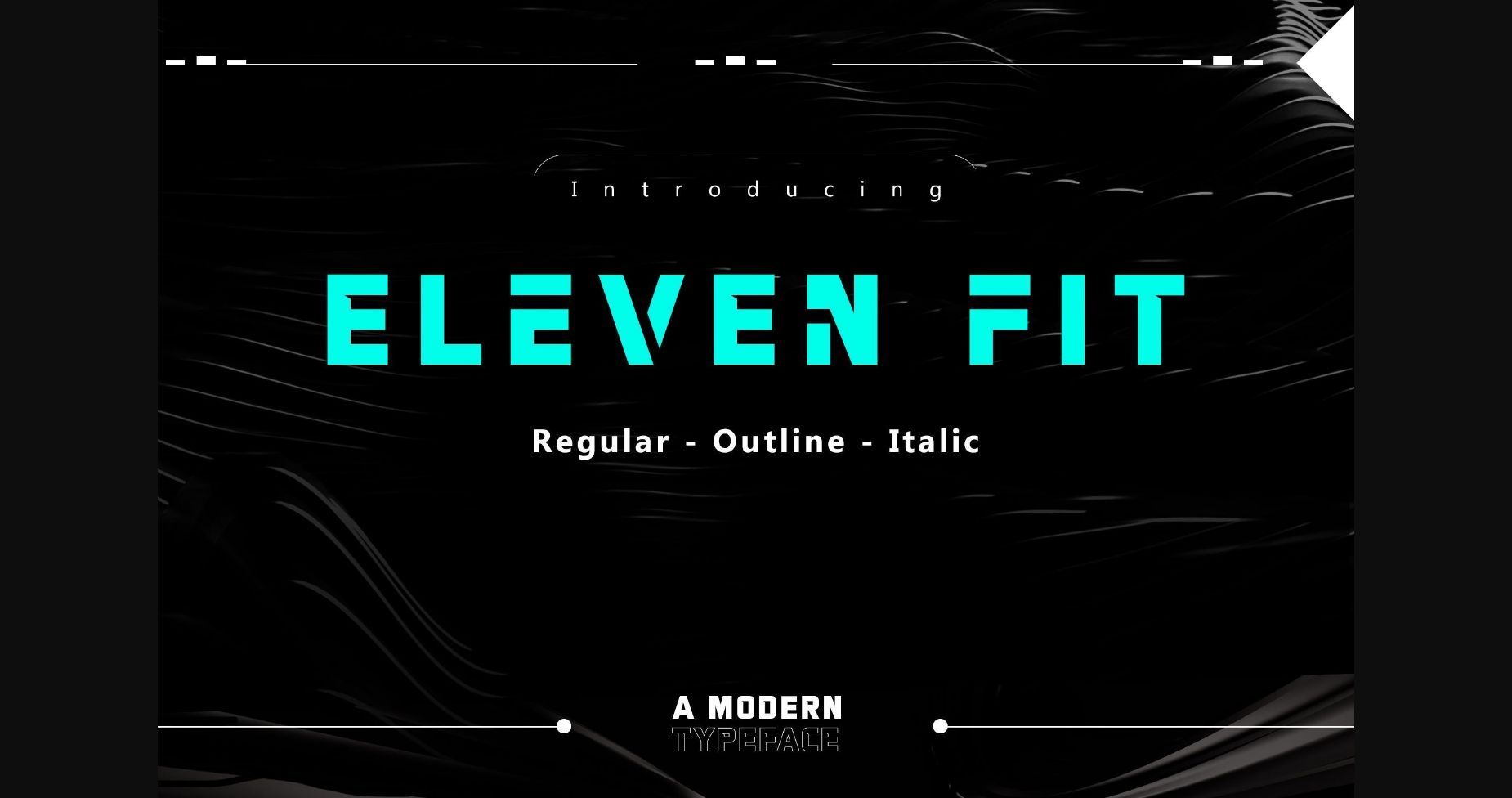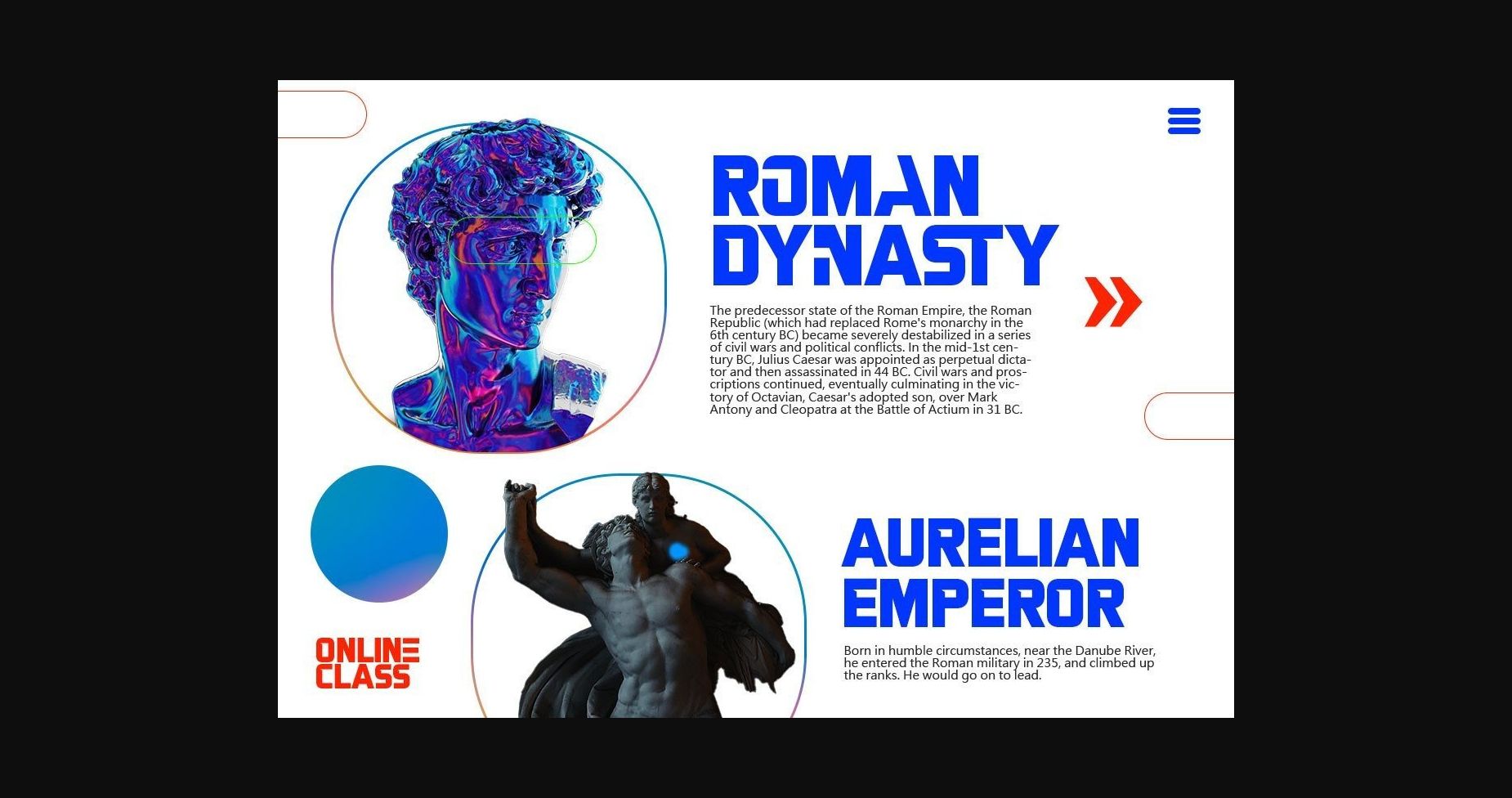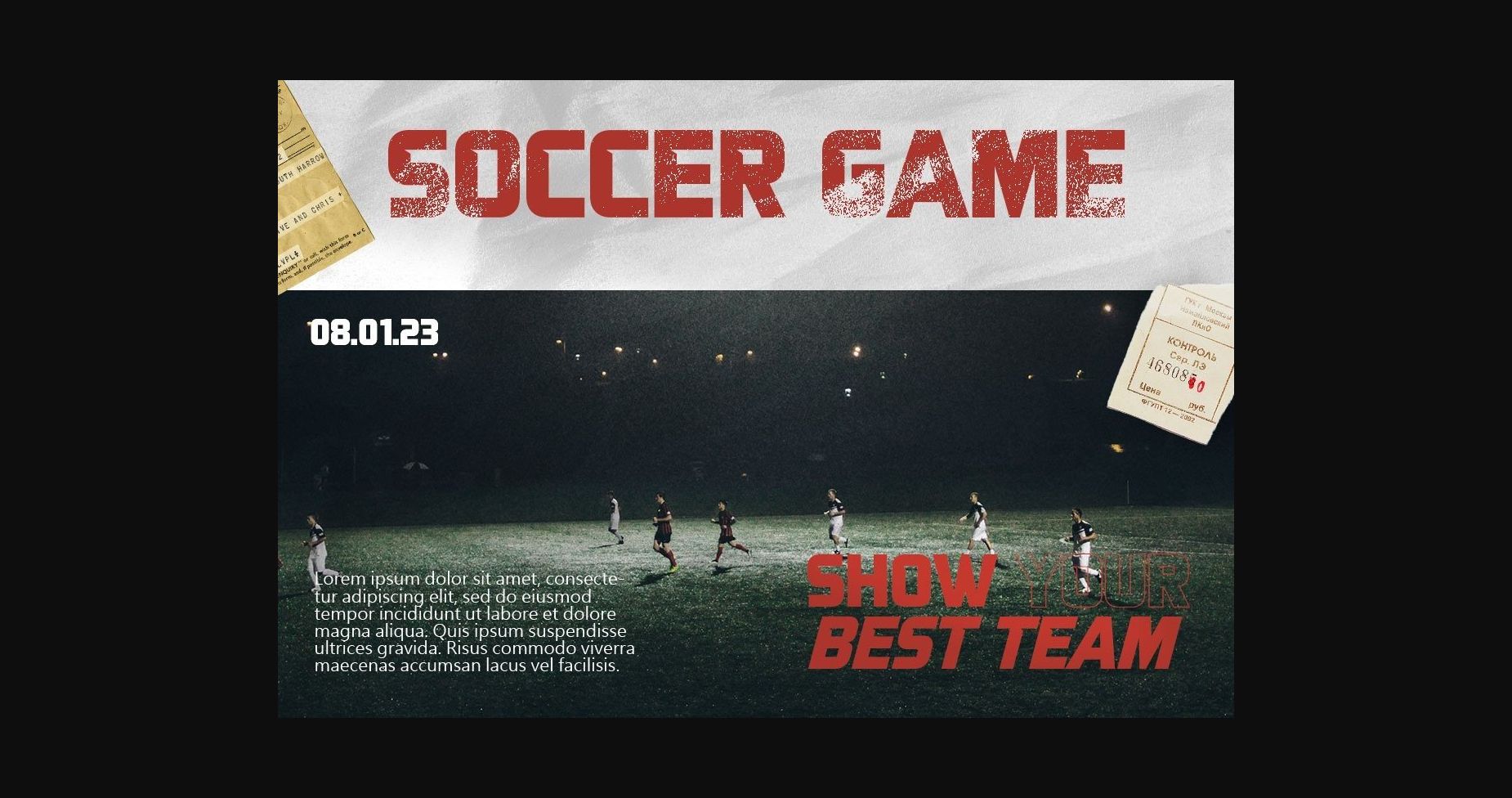
About Eleven Fit Font
Eleven Fit is a sporty and chunky sans serif font created for powerful messages and creative ideas related to the gym, working out, competitions, or anything alike. This font is PUA encoded, which means you can access all of the glyphs and swashes with ease!